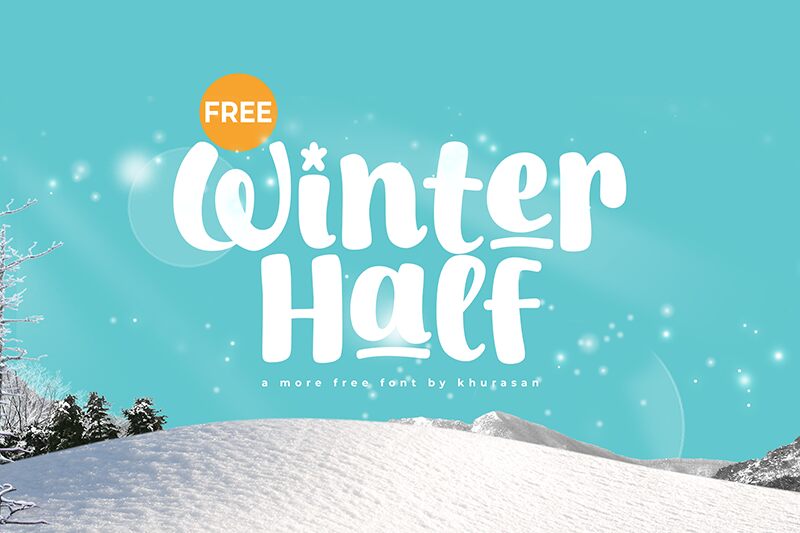
Winter Half font by Khurasan is a bold cartoon display typeface with decorative and fun elements. A whimsical collection of characters that appear retro-inspired, energetic, and artistic almost immediately upon seeing them. Handcrafted features dominate each character through light strokes, secondary lines, or creative dots.
This free font befriends your book cover designs, greeting cards, educational material for children, and magazine covers. It also looks great on packaging designs like cereal boxes and toy packages like board games or puzzles. Other potential use cases include T-shirt designs, poster designs, signs creation for public places for kids (schools or game parks), general advertising in print material where friendship is the dominant message.
Winter Half